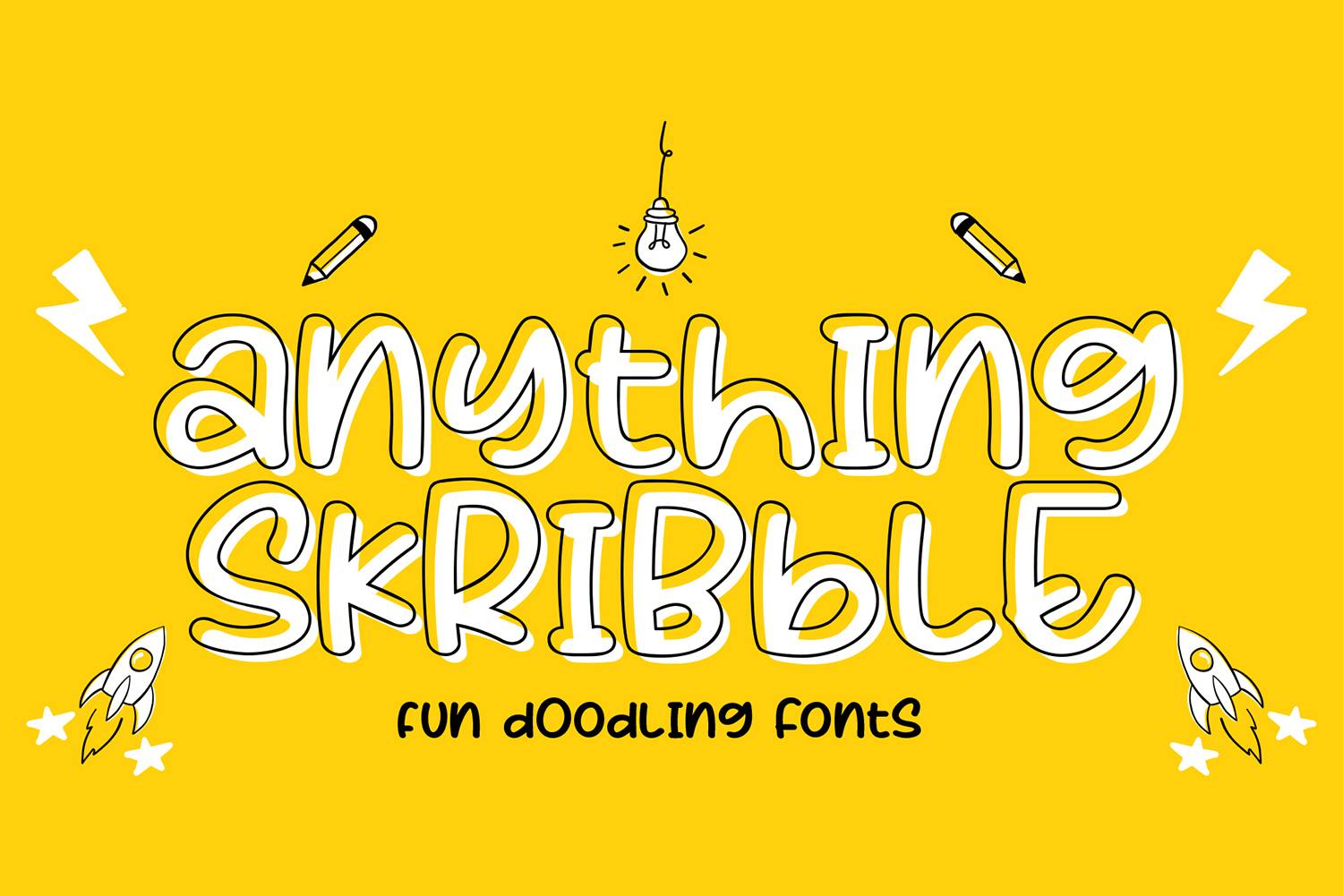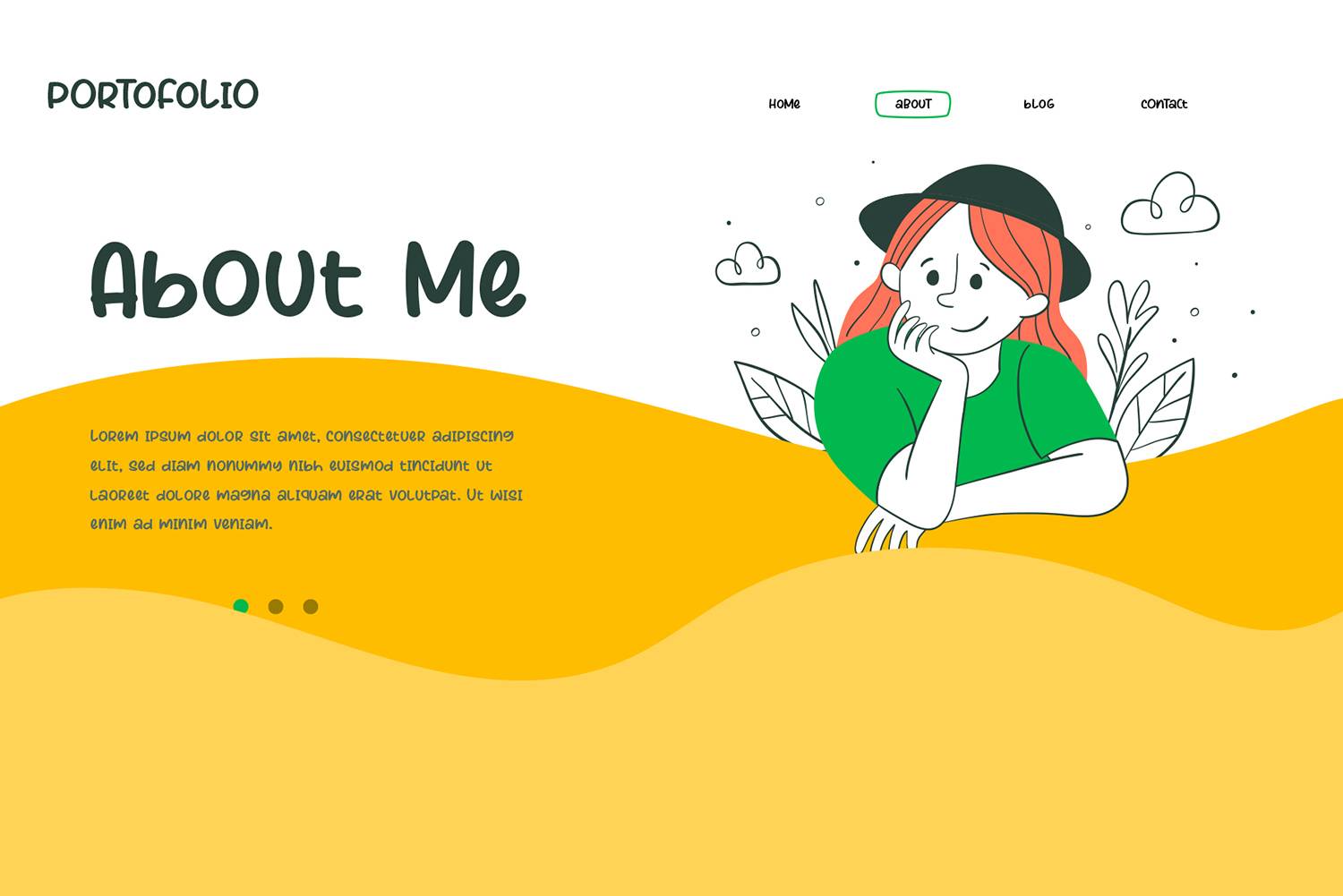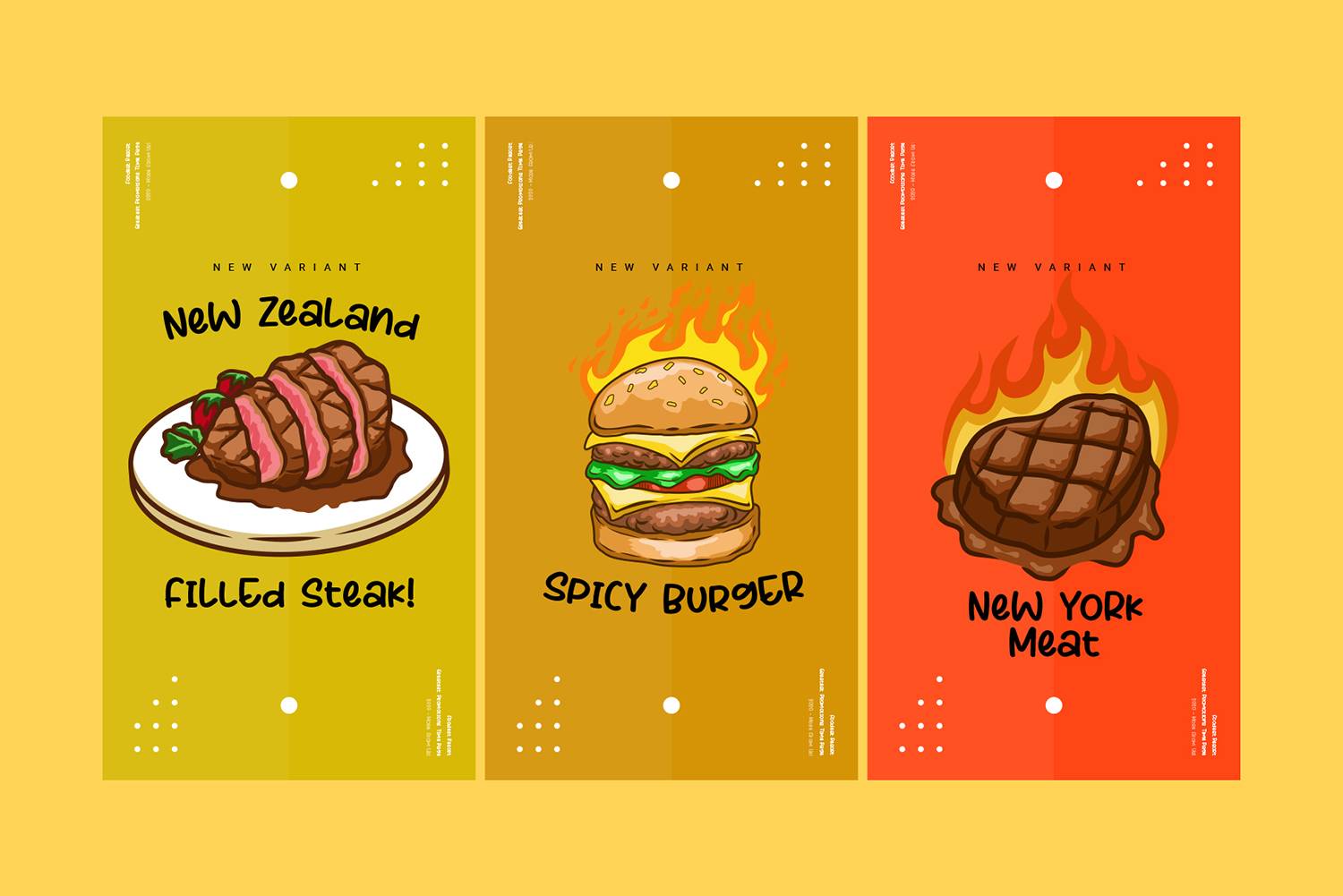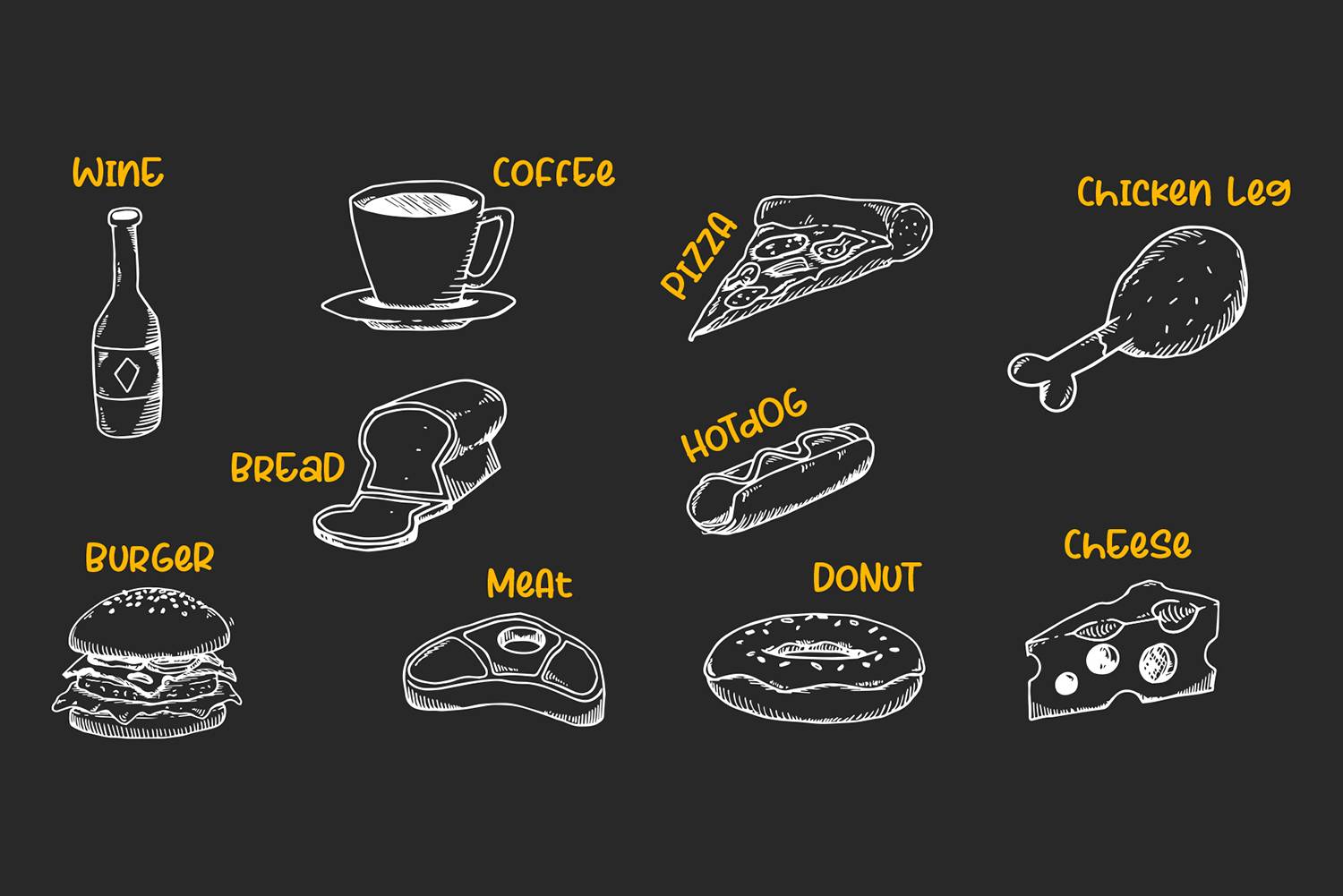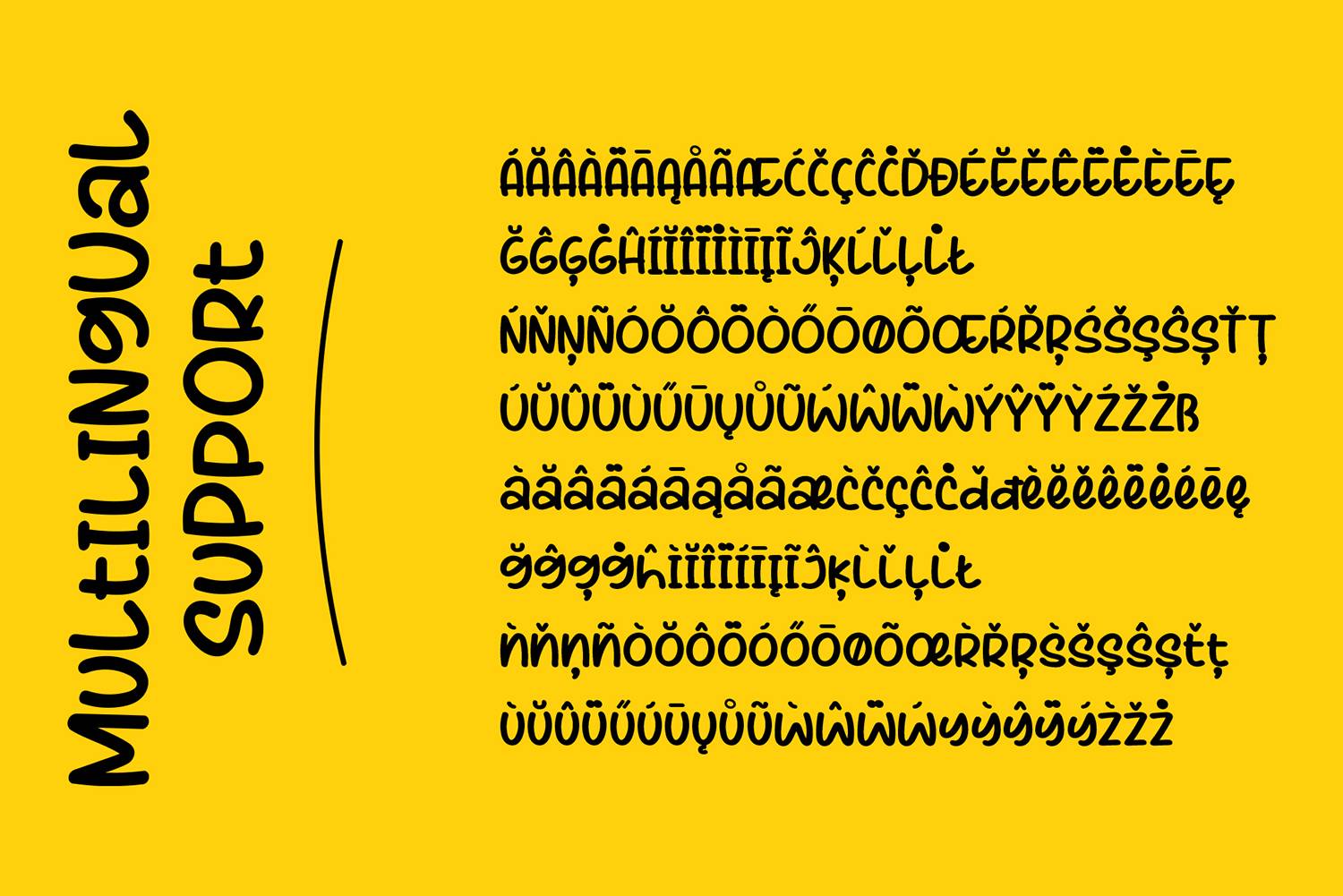
Anything Scribble is a playful sans serif font with a casual, hand-drawn feel that mimics natural handwriting. Its rounded, uneven letterforms and moderate x-height give it a friendly and approachable personality, making it ideal for informal designs, children’s materials, and creative projects. This font works well in logos, posters, and social media graphics where a lively, fun vibe is desired.
Anything Scribble Font
About Anything Scribble Font
| Font family | Anything Scribble Font |
| Release date | 2021-04-02 |
| Designer | Stefie Justprince |